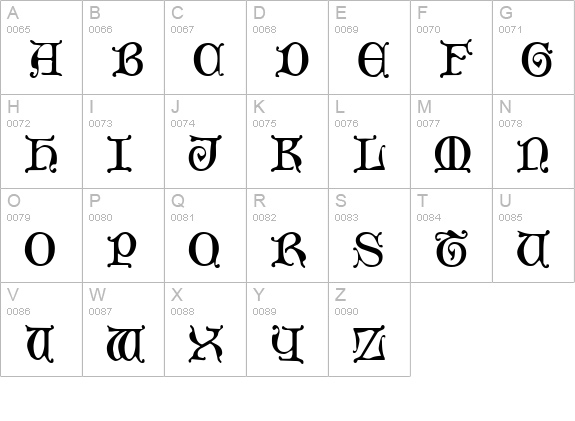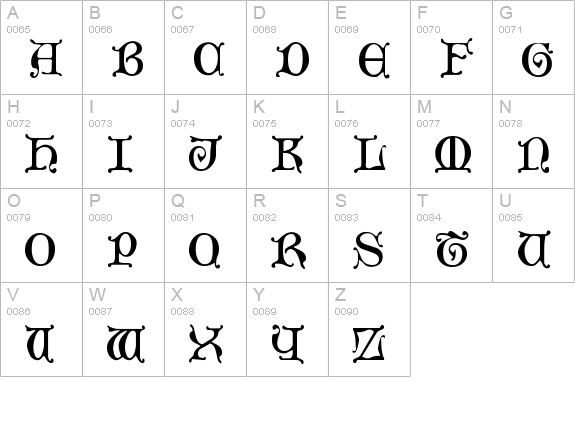
Aneirin Font Details
Aneirin font is a beautifully crafted typeface that exudes elegance and sophistication. Its intricate details and graceful curves make it ideal for adding a touch of luxury to any design project. Whether you're creating invitations, logos, or branding materials, Aneirin font is sure to make a lasting impression. The best part? Aneirin font is completely free to download at FontsMarket.com. This means you can enhance your projects with this stunning font without any cost. Don't miss out on the opportunity to elevate your designs with the timeless beauty of Aneirin font. Download it today and let your creativity shine!